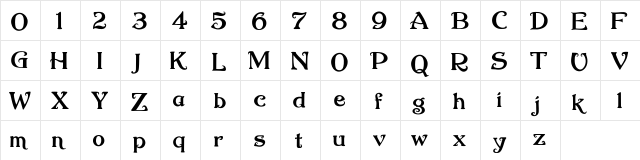
Nugie Romantic Font Preview
Nugie Romantic Nugie Romantic
Nugie Romantic Font Details
| Style | Nugie Romantic |
| Foundry | Cundrawan (cove703) |
| Designer | Cundrawan (cove703) |
Design Context for Nugie Romantic Typeface
Nugie Romantic is a composed and adaptable typeface that performs quietly and consistently across a wide range of design contexts.